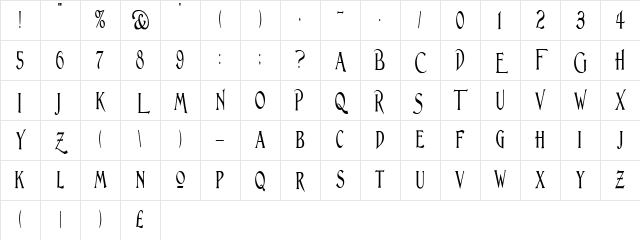
Complete Lightfoot Narrow Extra-condensed Regular glyph index. Displaying only characters natively supported by Lightfoot Narrow Extra-condensed Regular font.
Lightfoot Narrow is a composed and adaptable typeface that performs quietly and consistently across a wide range of design contexts. Its slender proportions lend an understated elegance to any composition. Its narrow stance lets it pack a punch even in space-constrained designs.